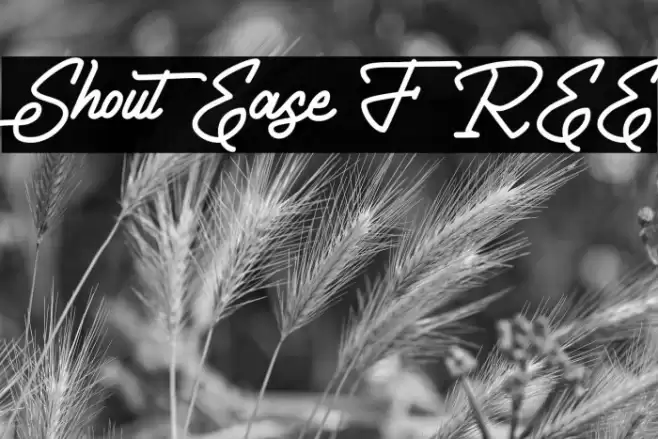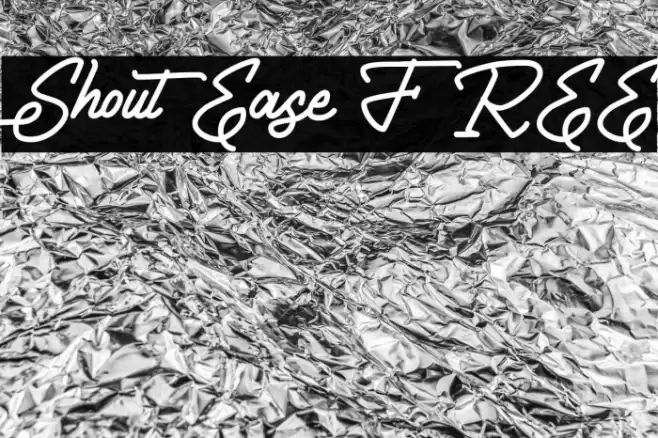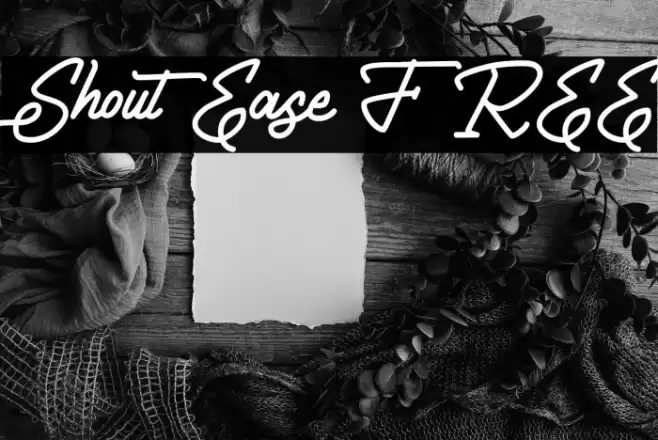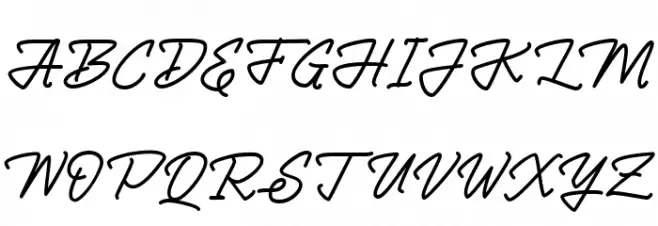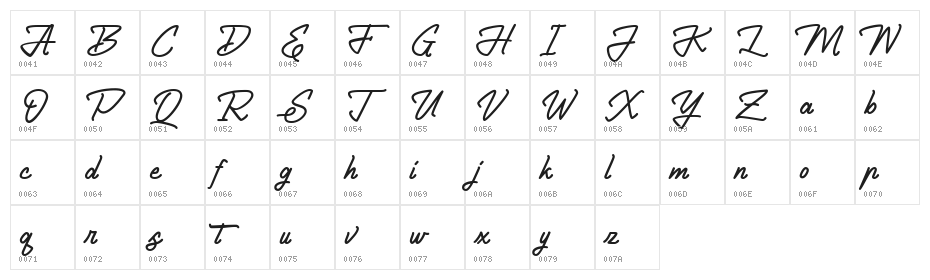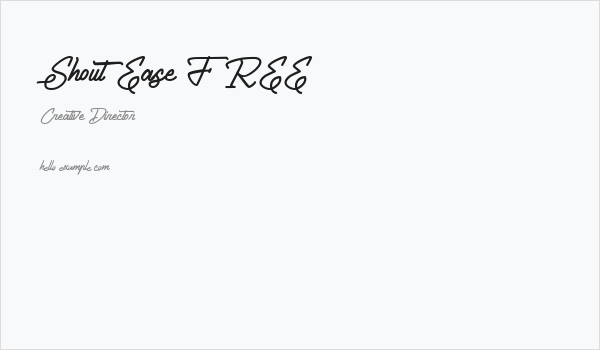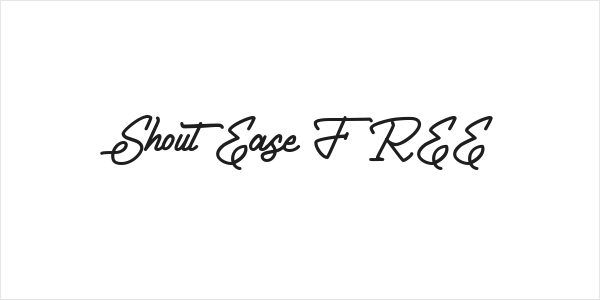
ShoutEase FREE Font
ShoutEase FREE Description
This font features a dynamic and elegant script style, characterized by its flowing, cursive letters that mimic the fluidity of handwriting. The uppercase letters exhibit a graceful, slightly slanted form, while the lowercase letters maintain a consistent, connected flow, enhancing readability. The font's design includes subtle flourishes that add a touch of sophistication without overwhelming the overall aesthetic. Its balanced weight and smooth curves make it suitable for a variety of applications, offering a harmonious blend of style and legibility.
A dynamic and elegant script font with flowing, cursive letters from Regular fonts.
- Proposed Projects: Ideal for wedding invitations, greeting cards, branding projects, and elegant signage.
- Overall Style: Elegant
- Use Case: Logos, Invitations, Decorative text